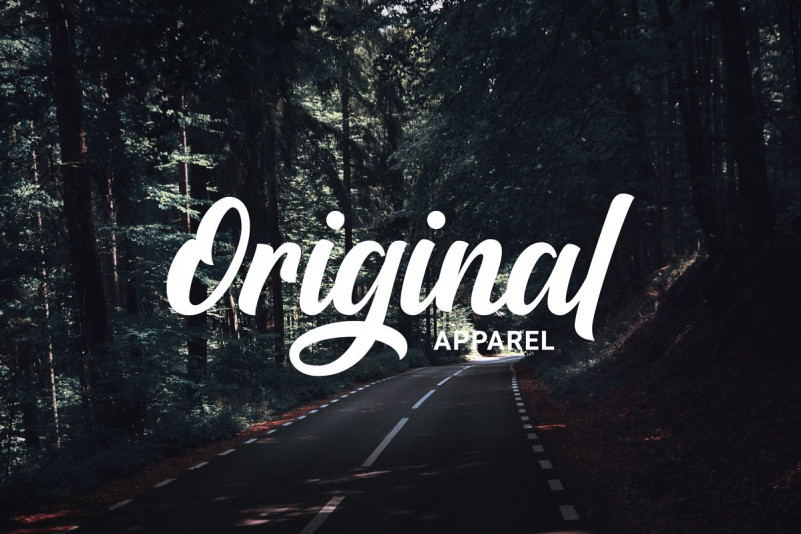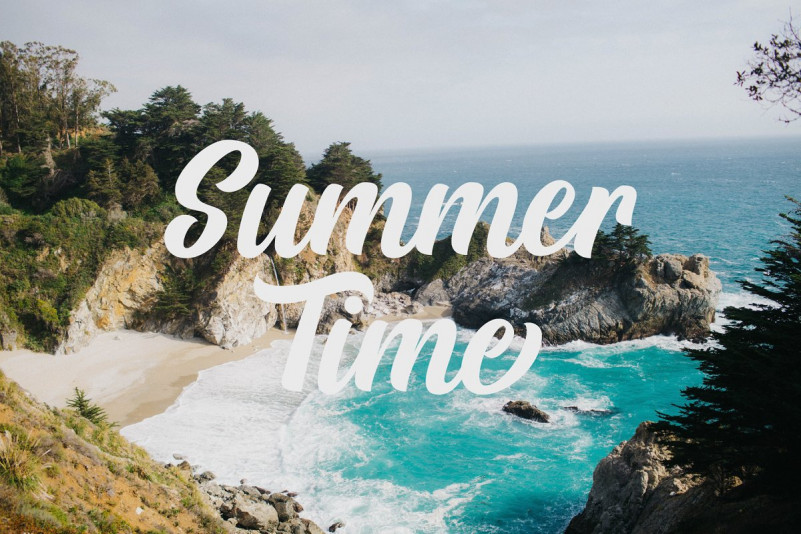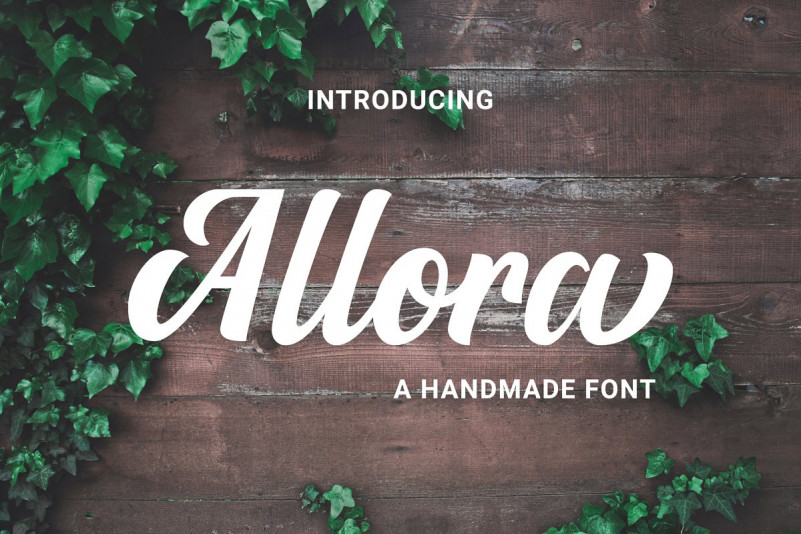
Allora Font
Allora is a handmade formal script font that allows you to create beautiful brush pen script instantly. It is perfect for Logotypes, Letterheads, Advertisements, Posters and much more!